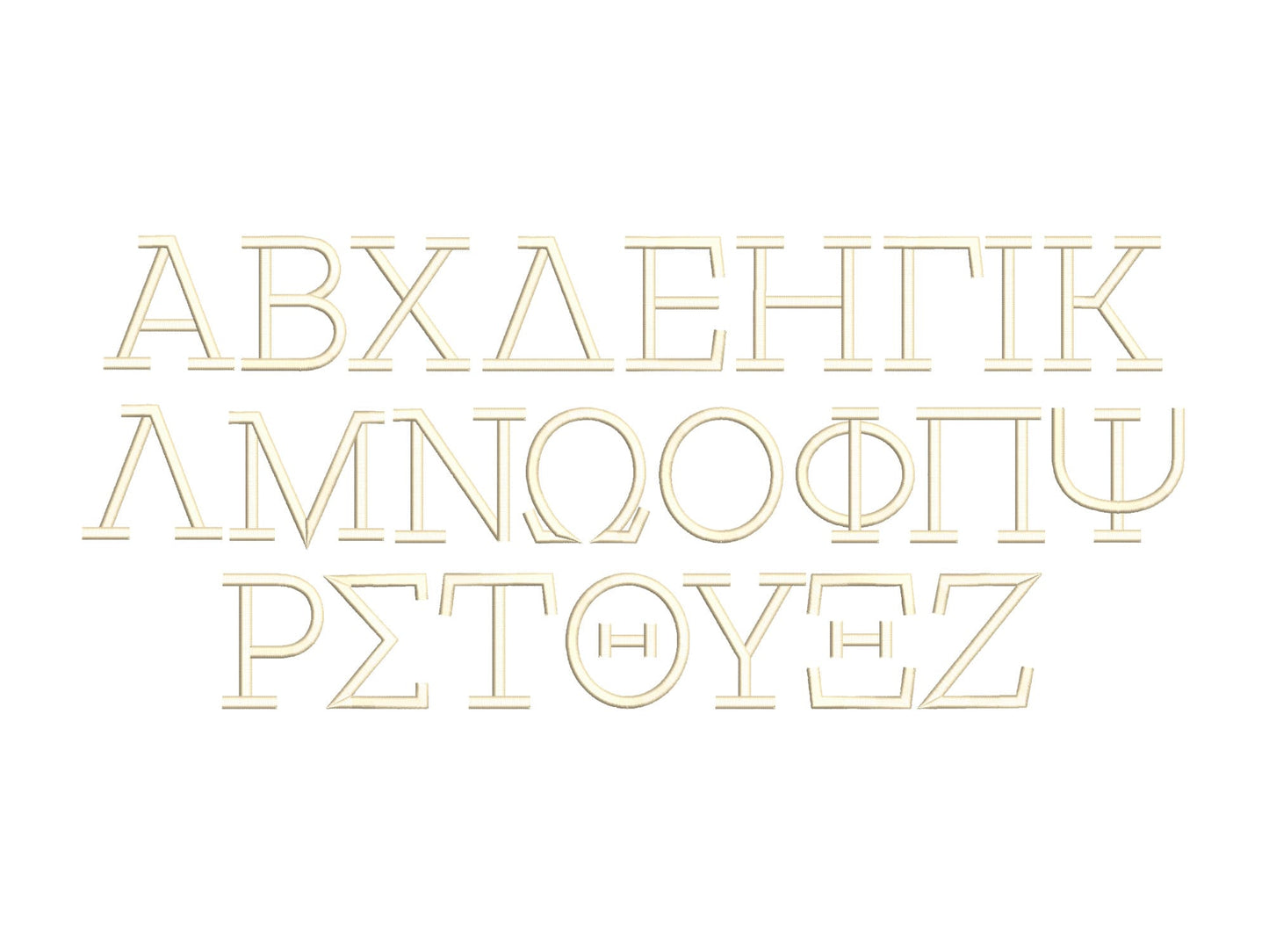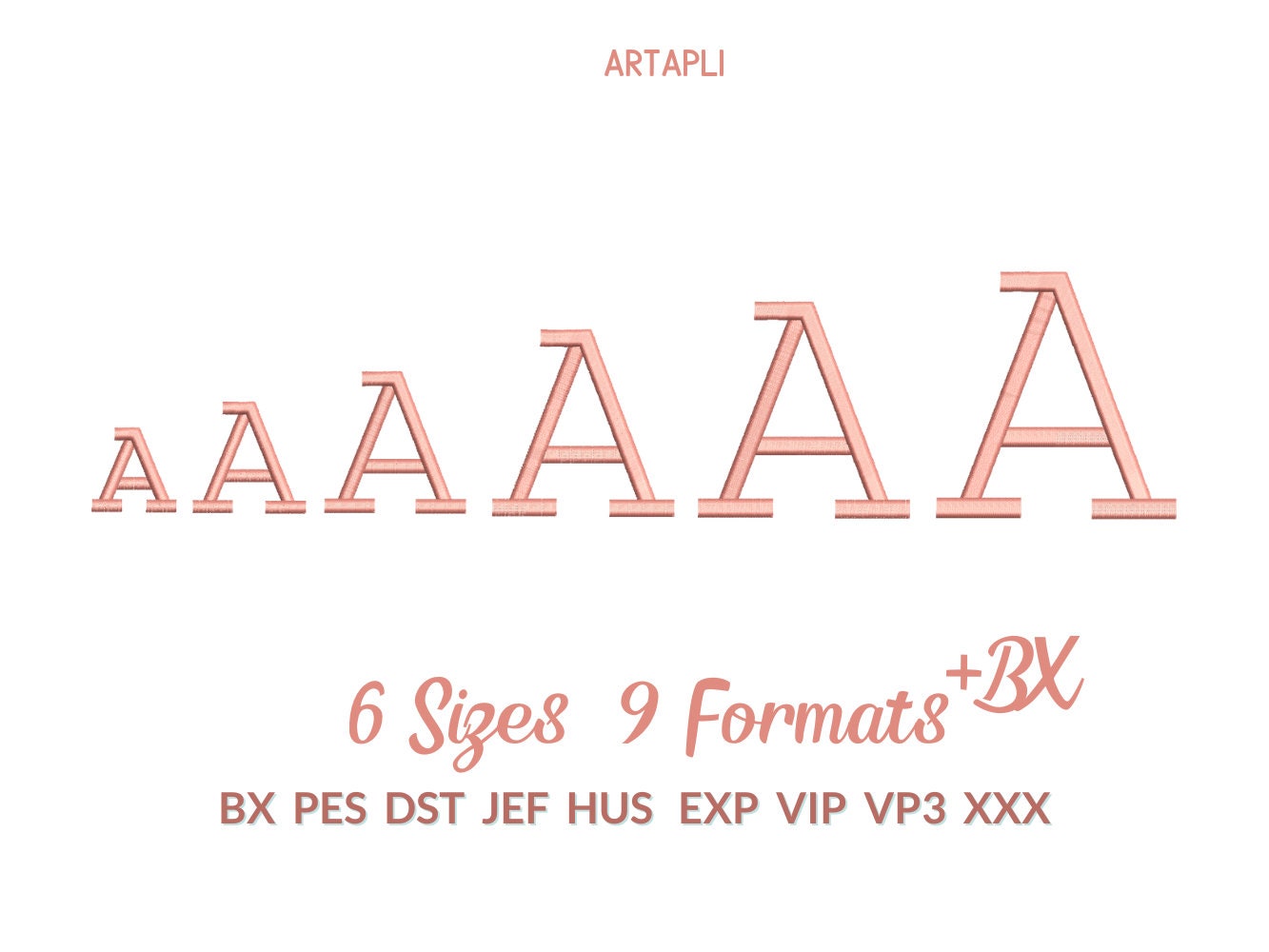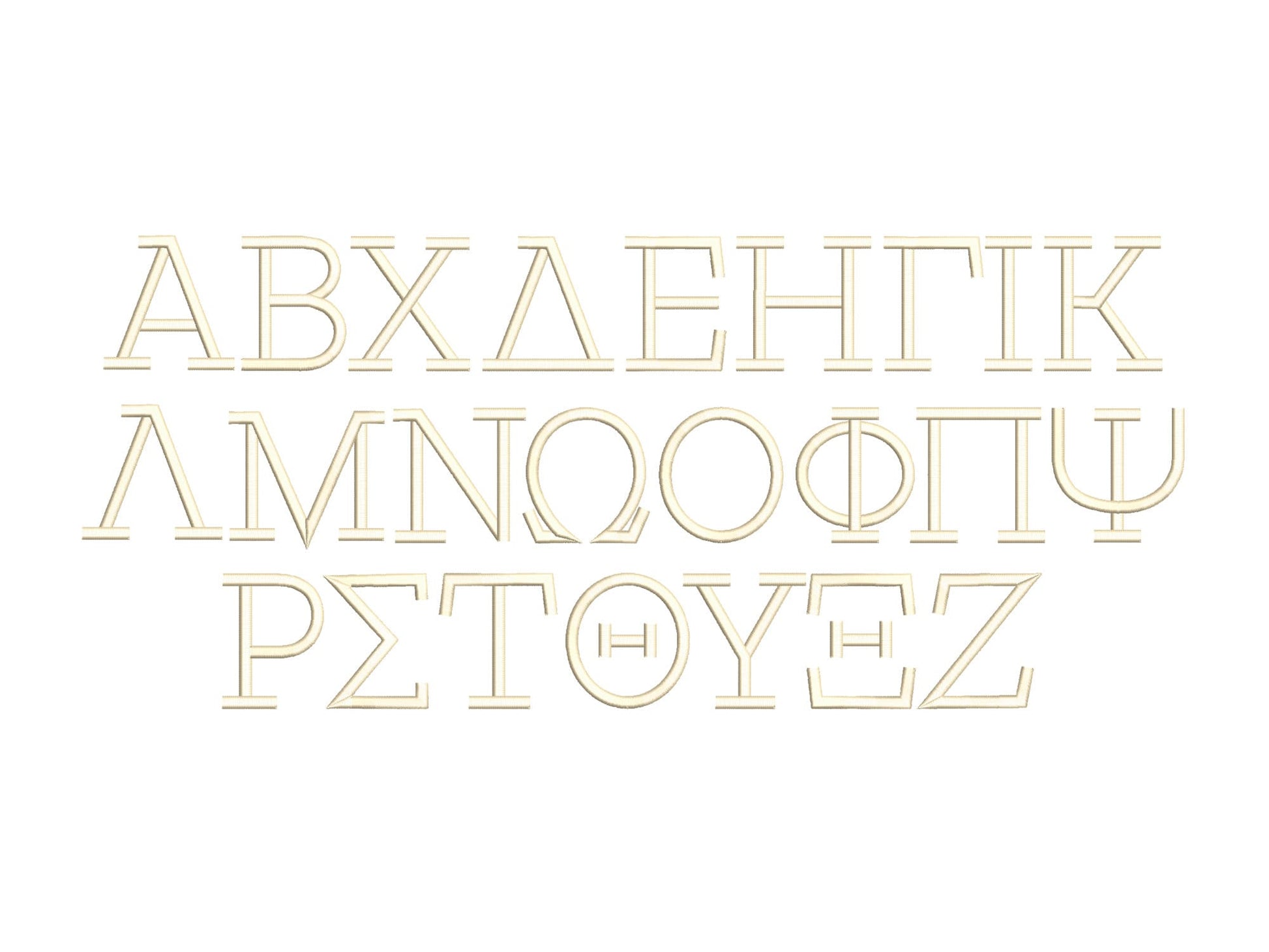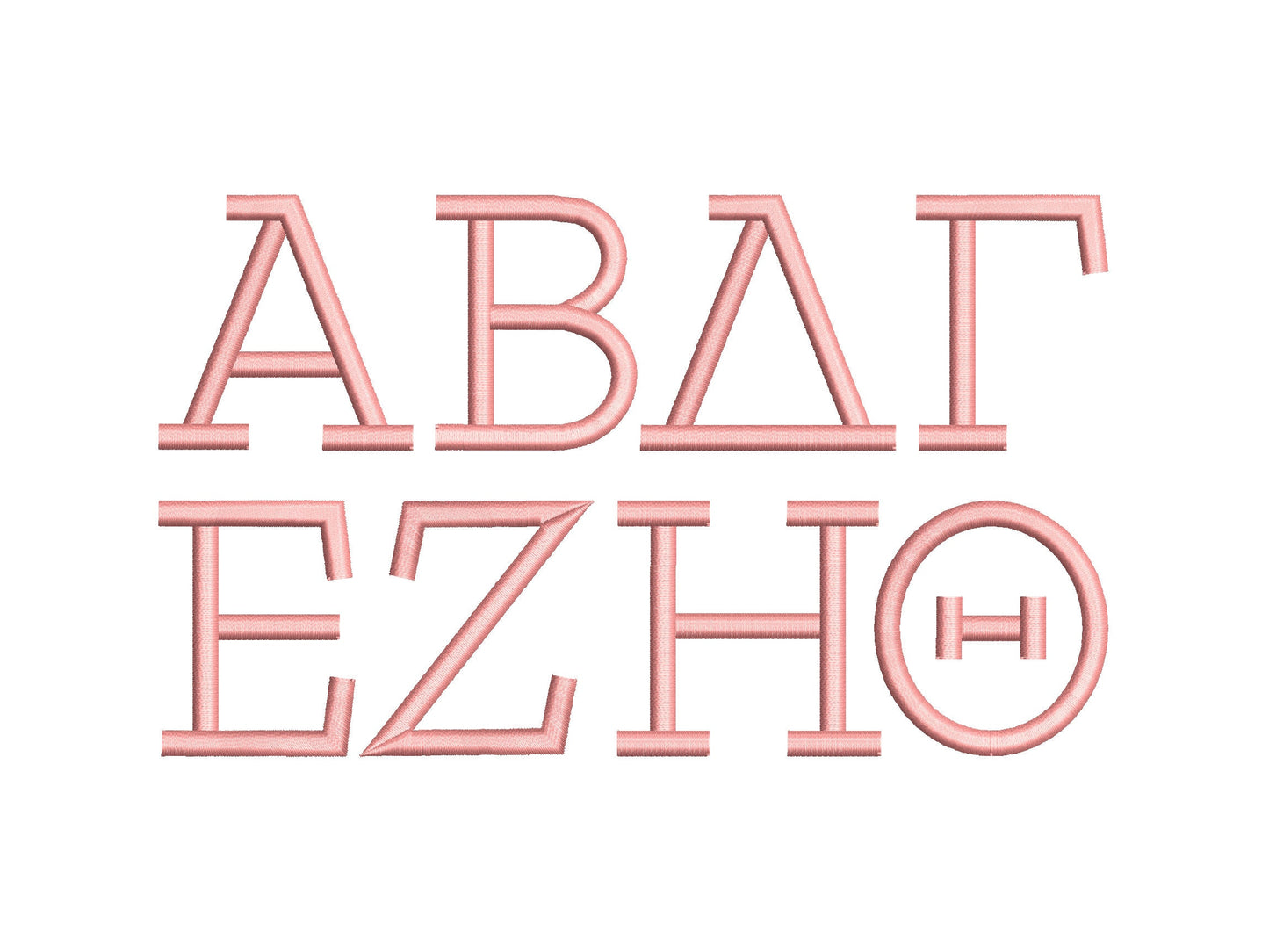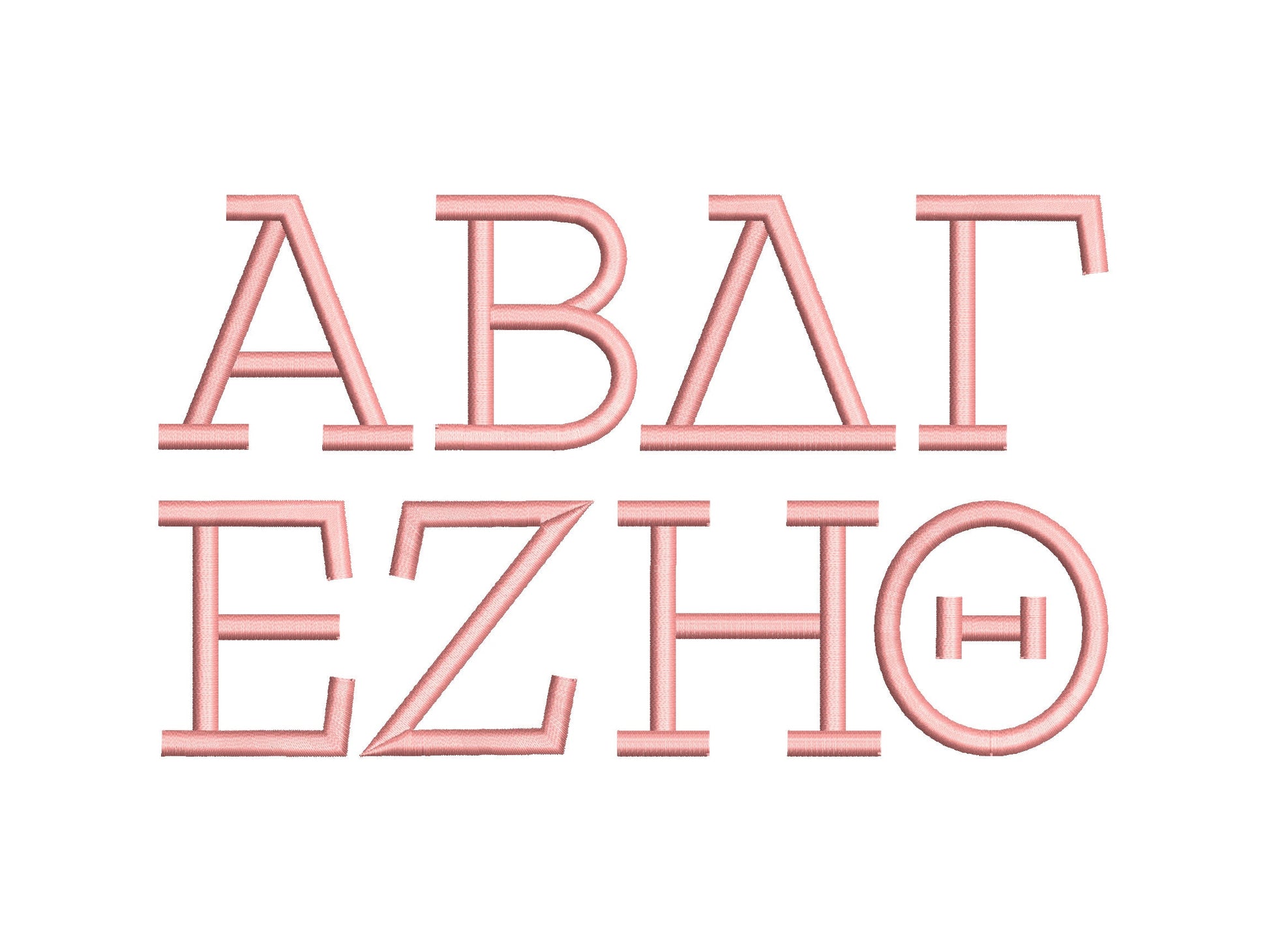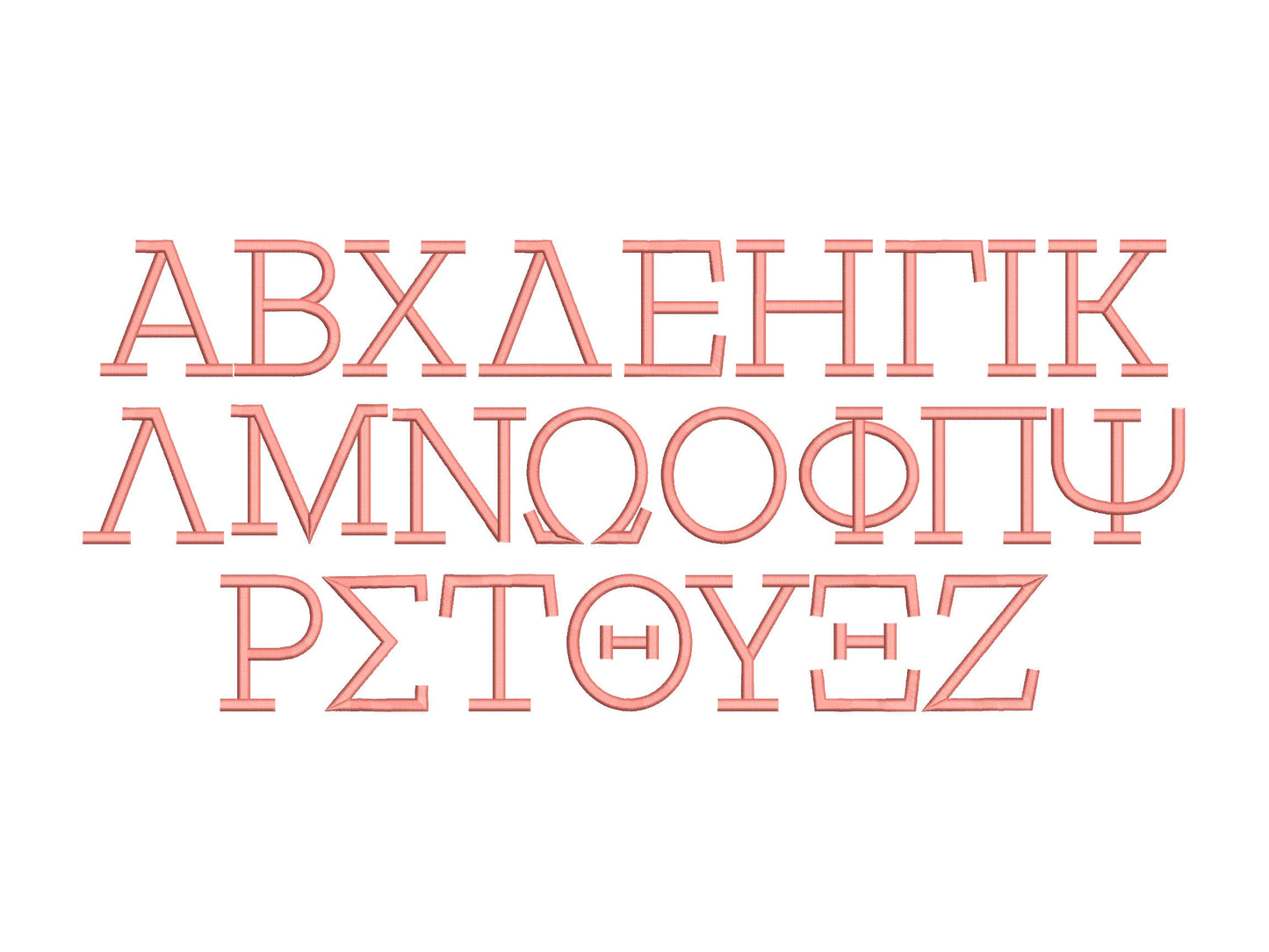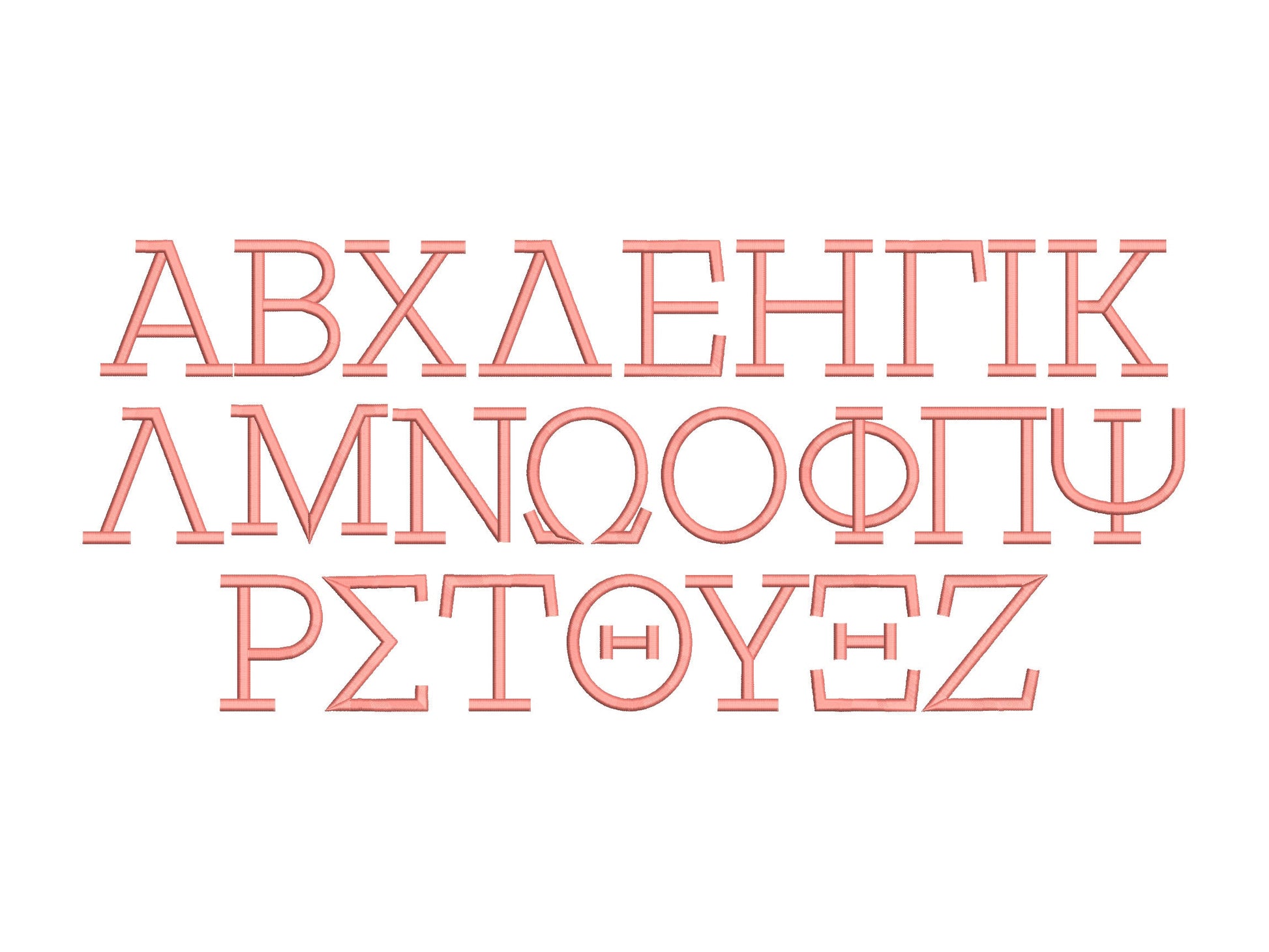
Or click to open the linkBlock Greek letters in smooth satin stitch. Classic for sorority and fraternity shirts, caps, bags and gifts.
All 24 Greek letters in six sizes: 1.2, 1.5, 2, 2.5, 3 and 3.5 inches. Clean satin stitch.